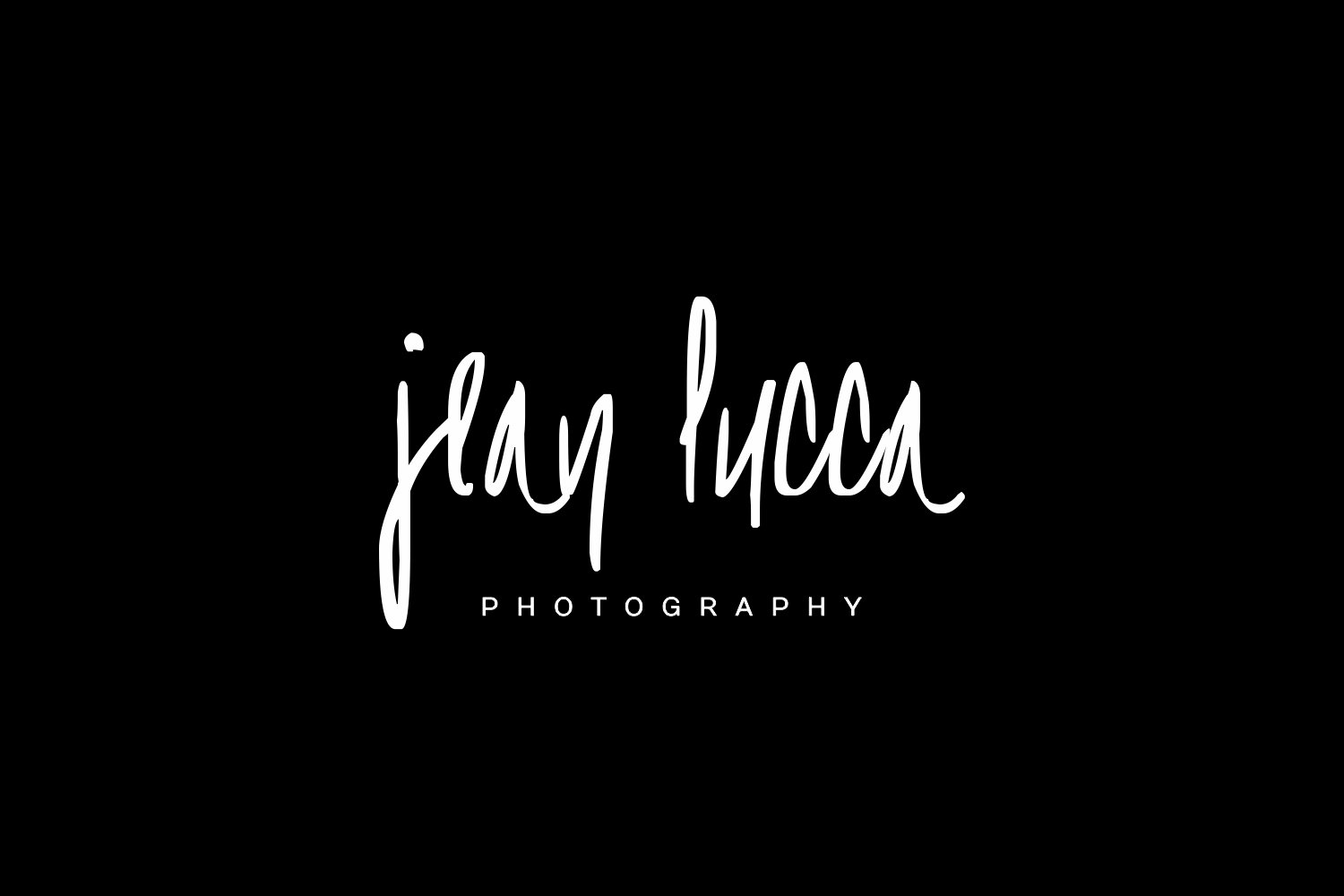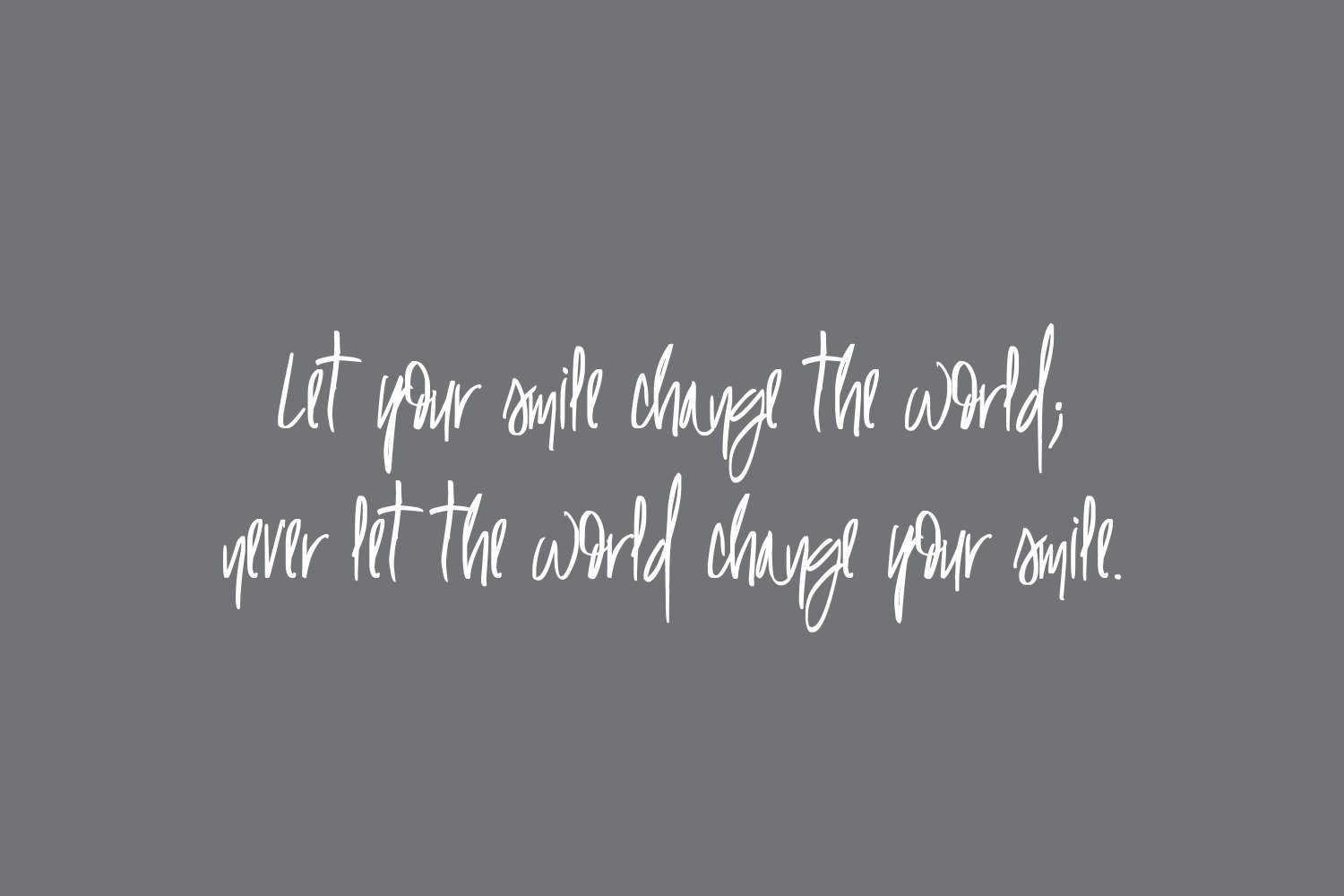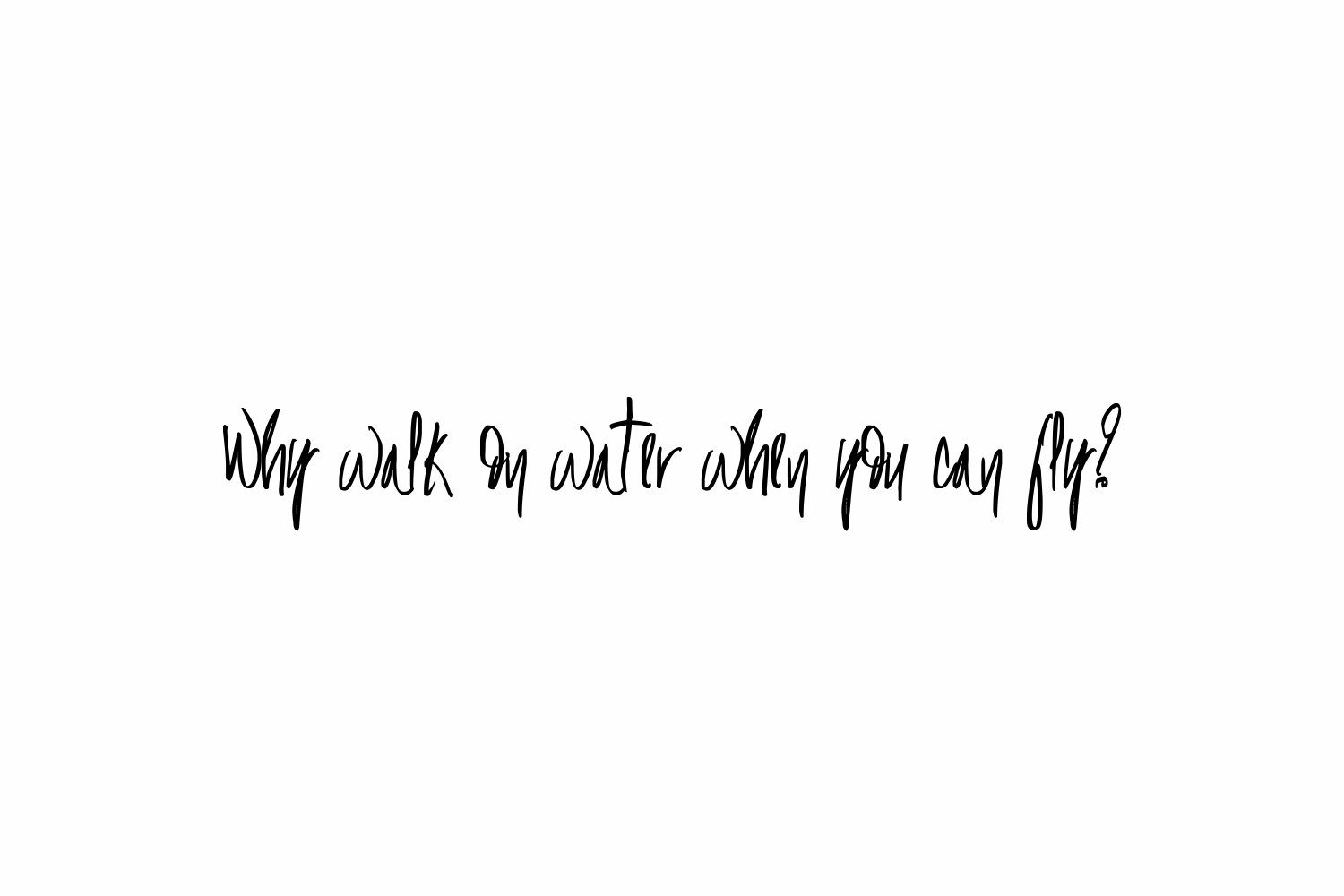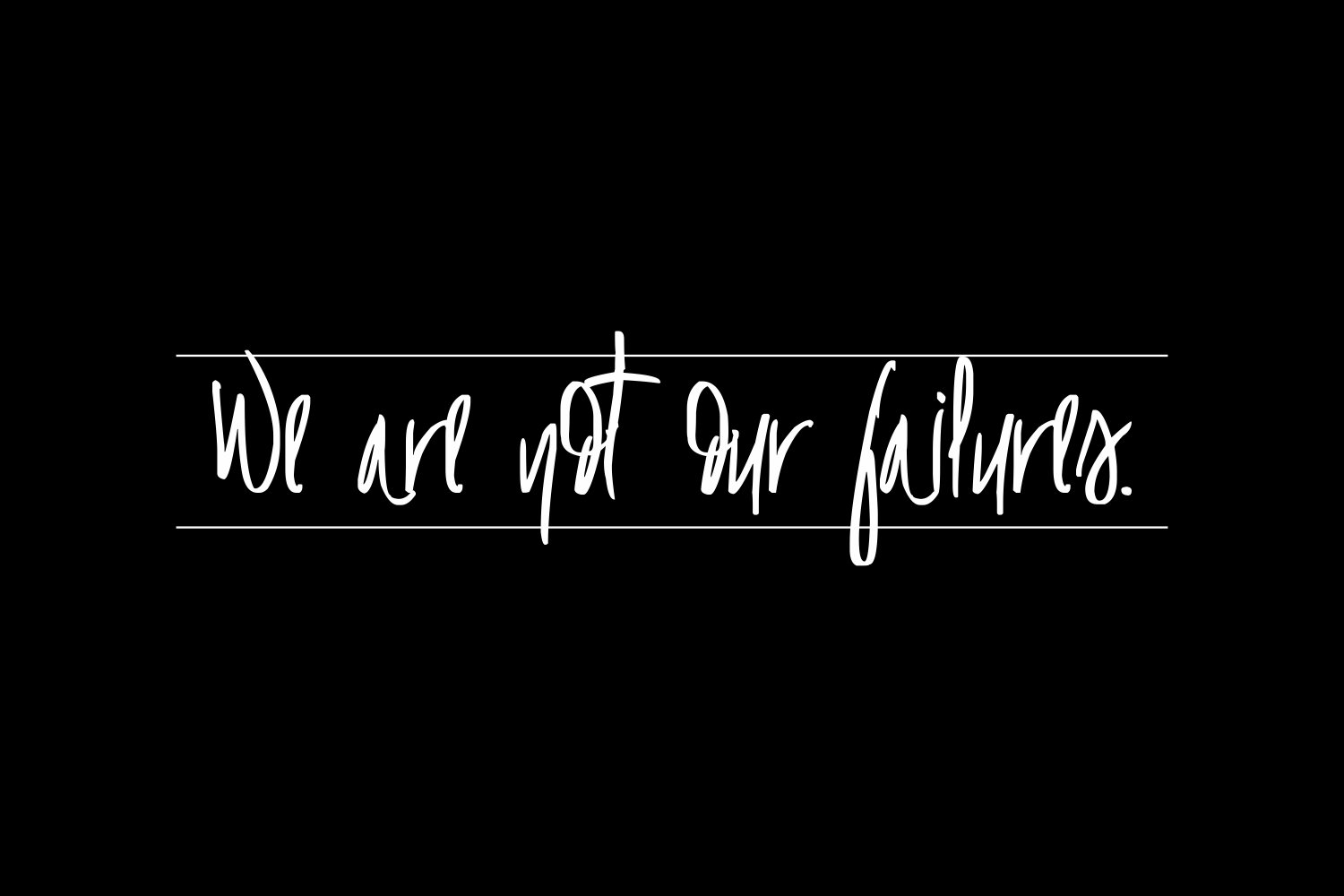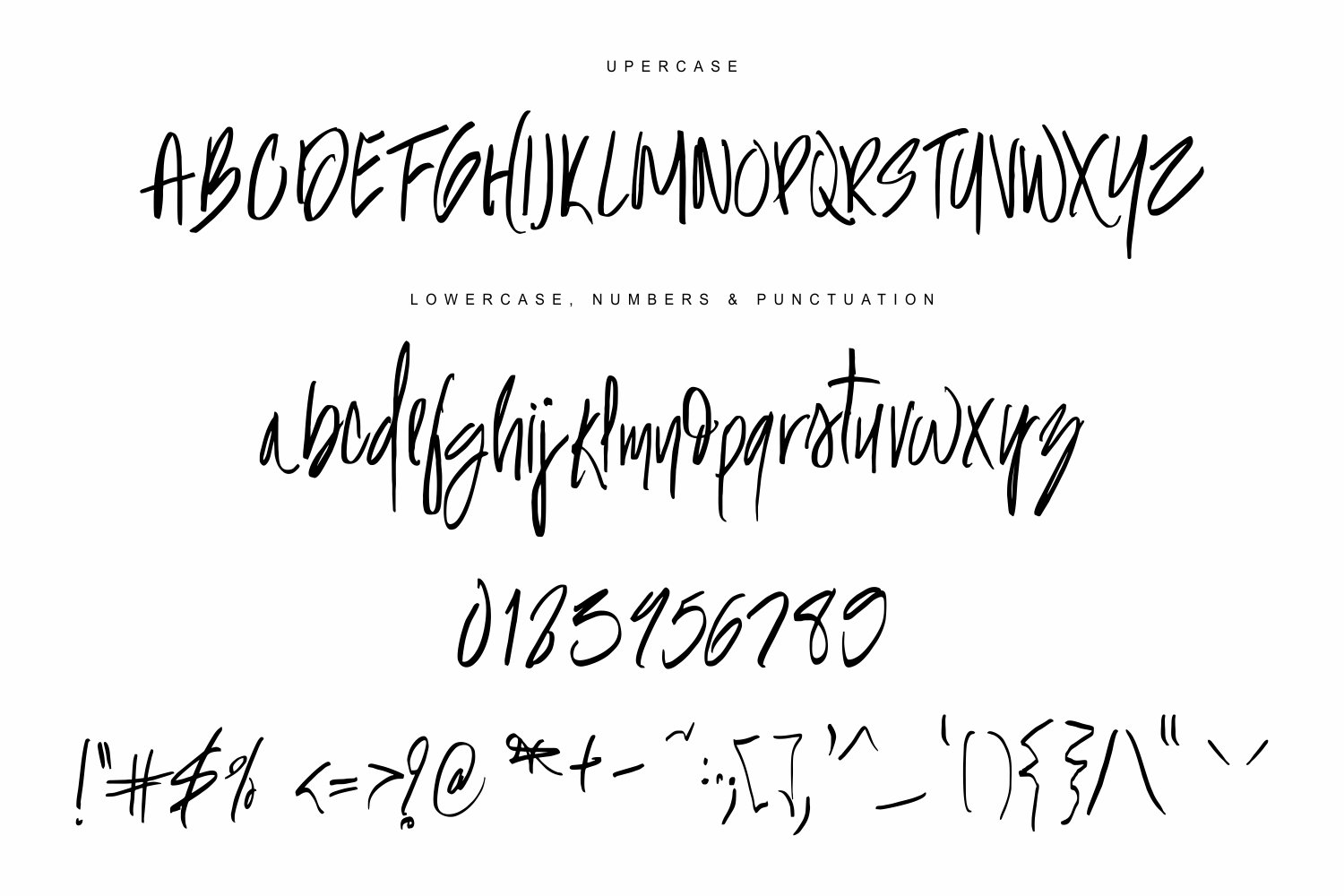
Facino Dolce Font
About Facino Dolce Font
Facino Dolce is a luxurious, bold, and casual script font. Great as a display font or as a complement to other fonts, Facino Dolce will add a luxe touch to your designs.